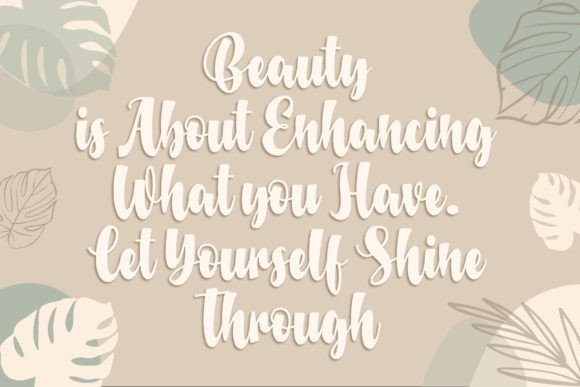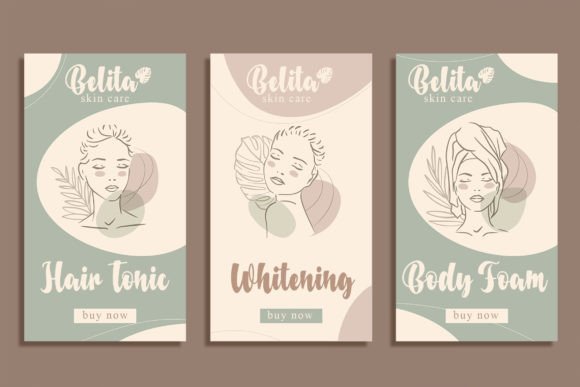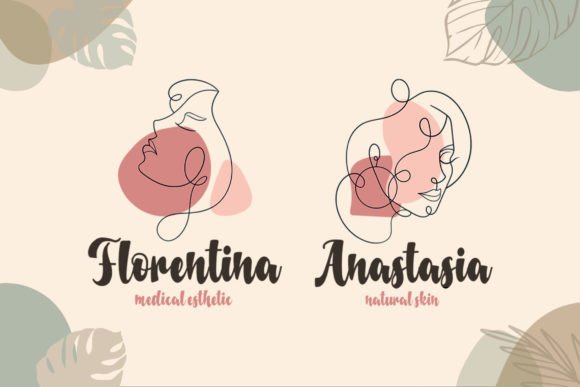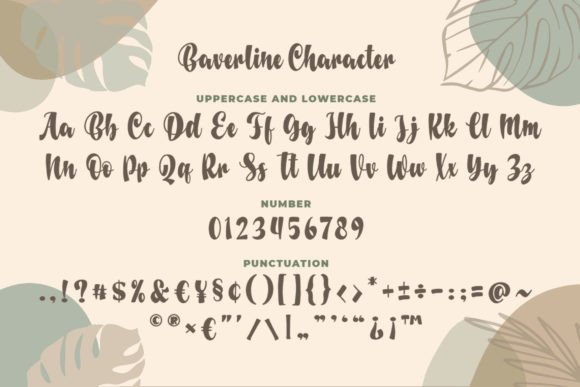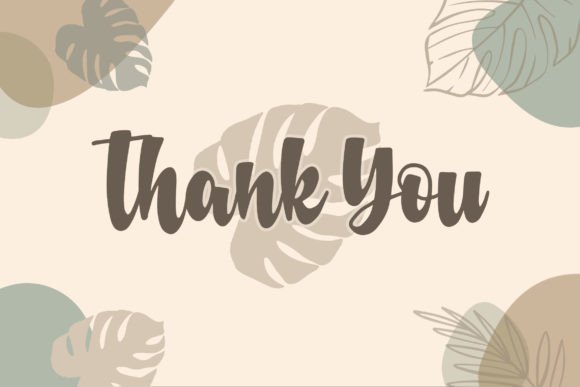
Baverline Font: Elevate Your Designs with Elegance and Sophistication
In the world of typography, fonts play a crucial role in conveying the tone and personality of a brand, product, or service. For designers and crafters, finding the perfect font can be a daunting task, especially when looking for something that exudes class, elegance, and modernity. This is where Baverline Font comes into play – a stunning, bold script font that can instantly elevate your designs and take them to the next level.
What is Baverline Font?
Baverline Font is a gorgeous, bold script font that boasts a classy, elegant, and modern look. Its unique and stylish design makes it an ideal choice for a wide range of applications, including logos, branding, invitations, stationery, wedding designs, social media posts, and much more. Whether you’re a designer, crafter, or simply someone who loves to dabble in creative projects, Baverline Font is sure to impress.
Key Features of Baverline Font
So, what makes Baverline Font so special? Here are some of its key features:
- Bold and Elegant Design: Baverline Font features a bold and elegant design that commands attention and exudes sophistication.
- Script Style: Its script style gives it a personal and artistic touch, making it perfect for creative projects.
- Modern Look: The font’s modern look ensures that your designs stay fresh and up-to-date.
- Versatile: Baverline Font can be used for a wide range of applications, from logos and branding to invitations and social media posts.
Use Cases for Baverline Font
Baverline Font is an incredibly versatile font that can be used in various contexts. Here are some use cases to get you started:
- Logos and Branding: Create a lasting impression with a bold and elegant logo that showcases your brand’s personality.
- Invitations and Stationery: Add a touch of sophistication to your invitations, greeting cards, and stationery.
- Wedding Designs: Make your wedding designs truly unforgettable with Baverline Font’s elegant and modern look.
- Social Media Posts: Elevate your social media posts and make them stand out from the crowd.
Why Choose Baverline Font?
With so many fonts available, why choose Baverline Font? Here are a few reasons:
- Unique Design: Baverline Font features a unique design that sets it apart from other fonts.
- Elegant and Modern: Its elegant and modern look ensures that your designs stay fresh and sophisticated.
- Easy to Read: Despite its bold design, Baverline Font is easy to read, making it perfect for body text and headlines.
- High-Quality: Baverline Font is a high-quality font that is designed to deliver exceptional results.
Tips for Using Baverline Font
To get the most out of Baverline Font, here are some tips to keep in mind:
- Use it Sparingly: Baverline Font is a bold font, so use it sparingly to avoid overwhelming your designs.
- Pair it with Other Fonts: Experiment with pairing Baverline Font with other fonts to create a unique and visually appealing design.
- Adjust the Size and Color: Adjust the size and color of Baverline Font to suit your design needs.
Baverline Font is a stunning, bold script font that can elevate your designs and take them to the next level. Its elegant and modern look, versatility, and high-quality design make it an ideal choice for designers, crafters, and anyone looking to add a touch of sophistication to their creative projects. Whether you’re looking to create a logo, invitation, or social media post, Baverline Font is sure to impress.